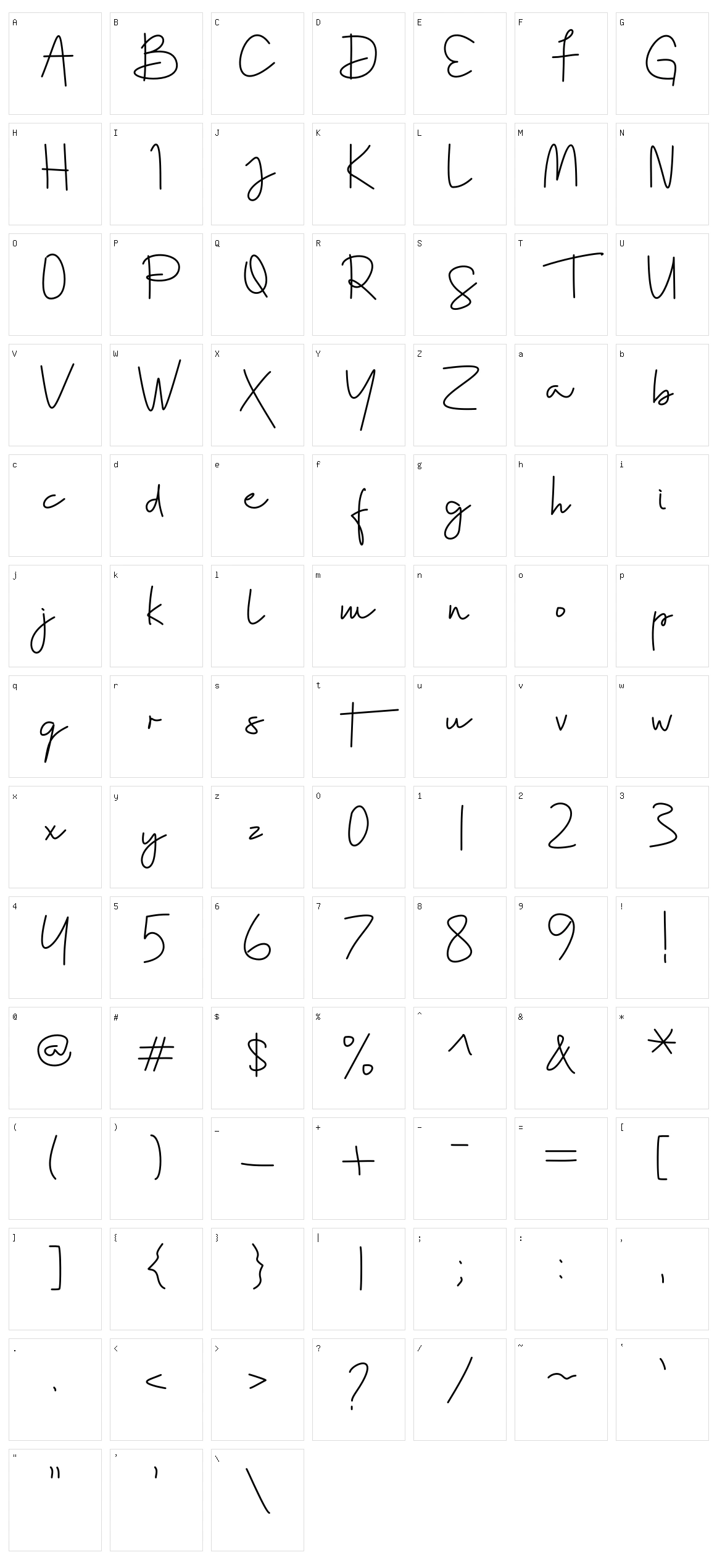
The free font Southja is carefully designed by Amin Mustofa, showcasing a thoughtful balance of creativity and usability and falls under the Script font style. When you download the ZIP file, it contains only 40.08 KB of font files, making it lightweight and quick to download. Please review the license details below to understand permitted usage and distribution rights. If license information is not available, we recommend using this font for personal projects only or contacting the author directly for commercial usage permissions.